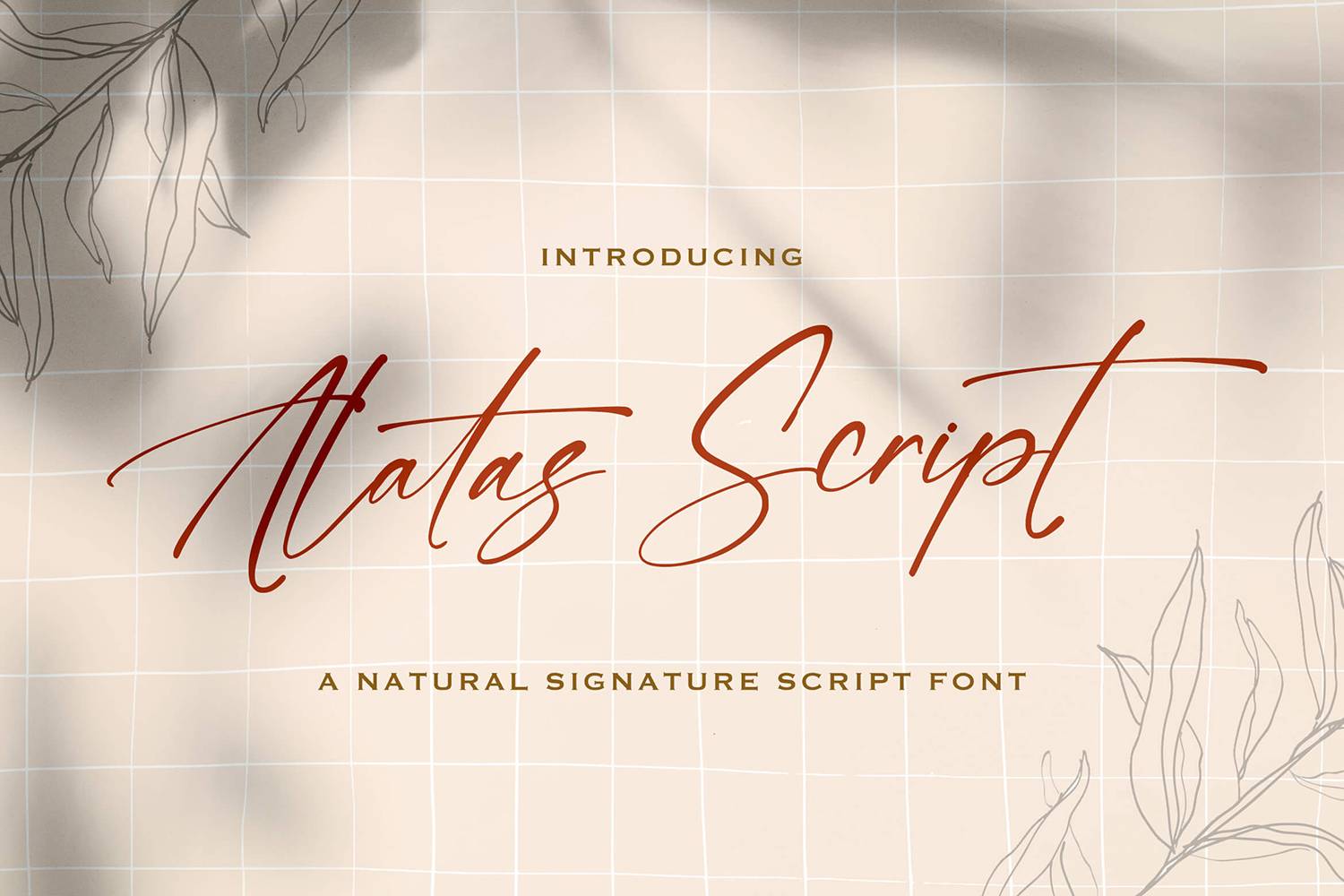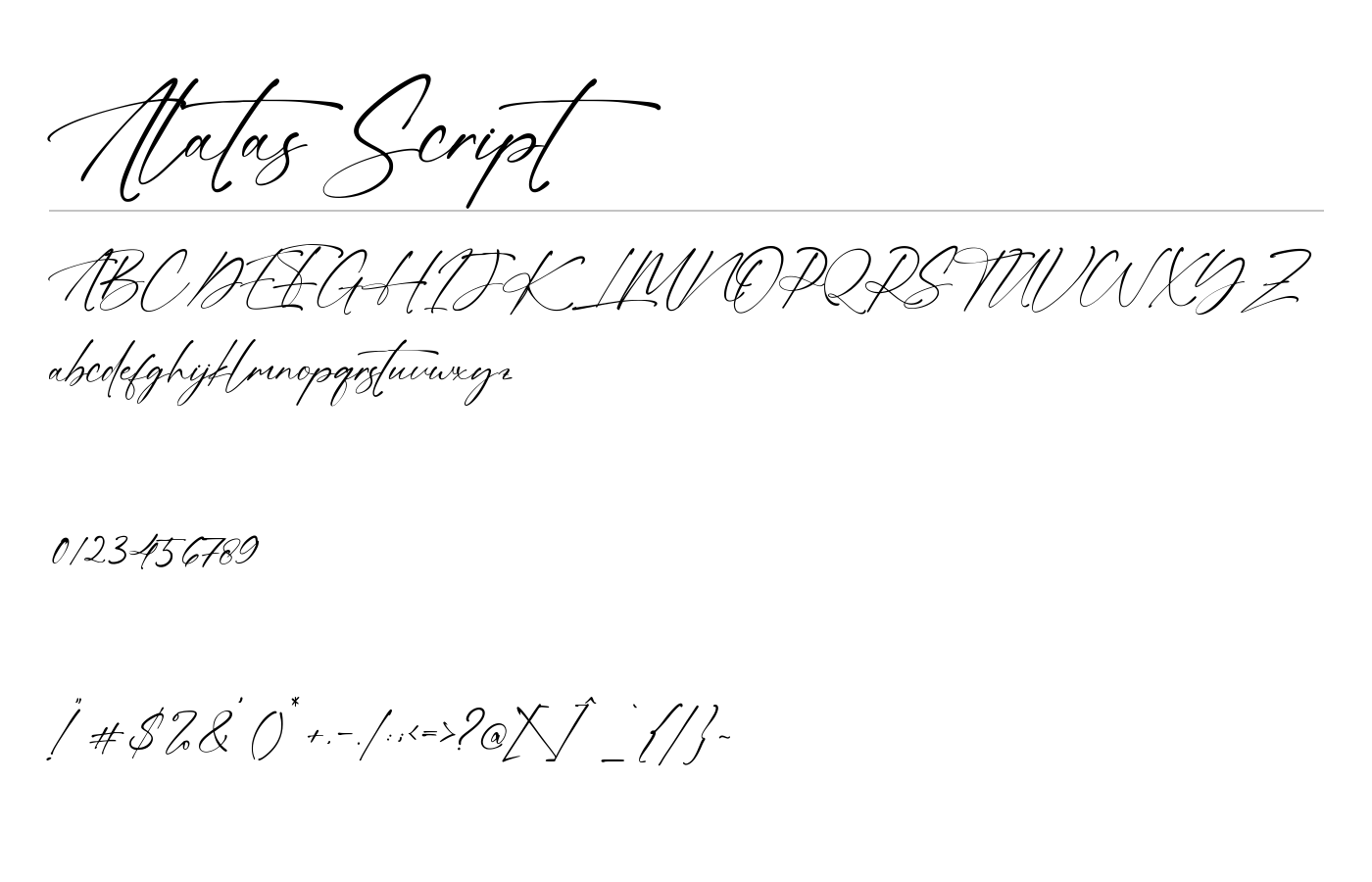
Alatas Script is an elegant and flowing handwritten script font characterized by fine, delicate lines and a natural, cursive style. Its slender strokes and high contrast create a graceful, sophisticated feel, perfect for upscale branding, wedding invitations, and stylish editorial designs that need a personal, artistic touch. This font works best in display settings where its intricate letterforms can shine without losing readability.
Alatas Script Font
About Alatas Script Font
| Font family | Alatas Script Font |